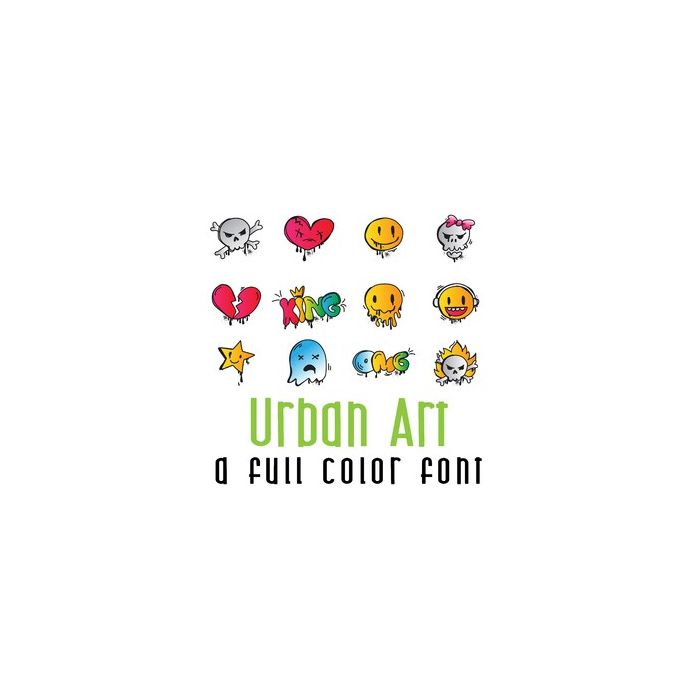
This adorable full-color doodlebat font features 26 urban style graffiti art and is perfect for cards, crafts, gifts, planner stickers, decor, scrapbook pages and more!